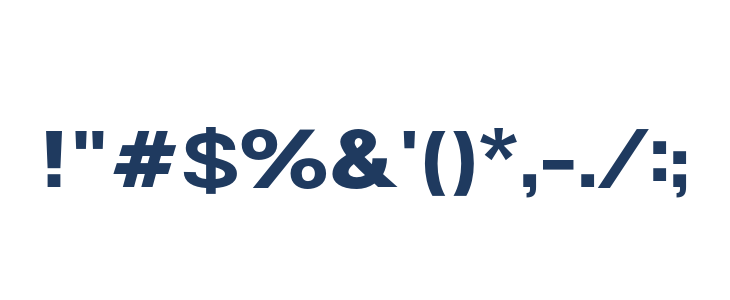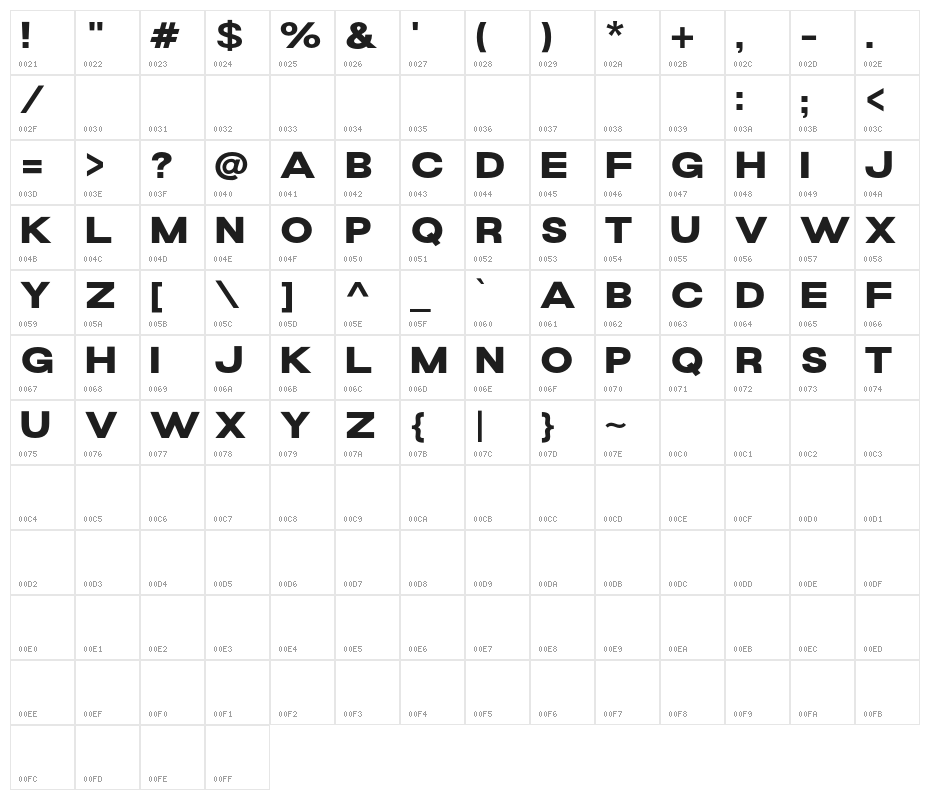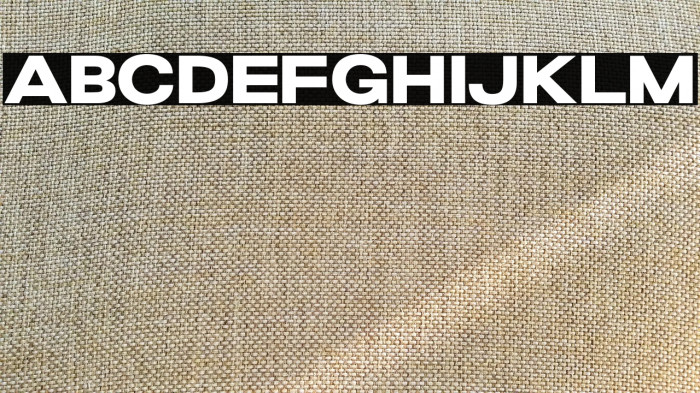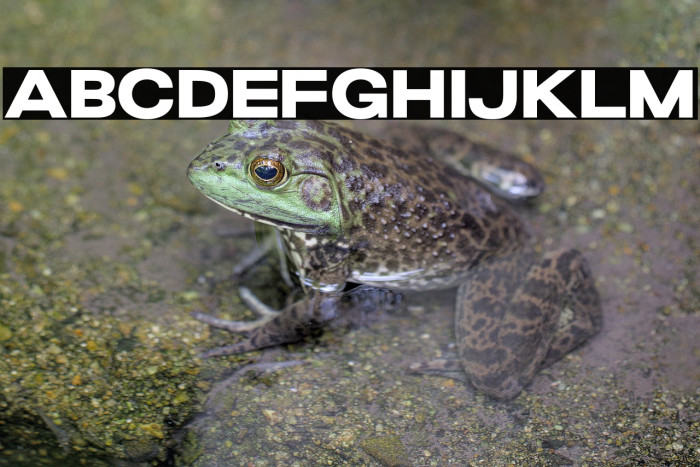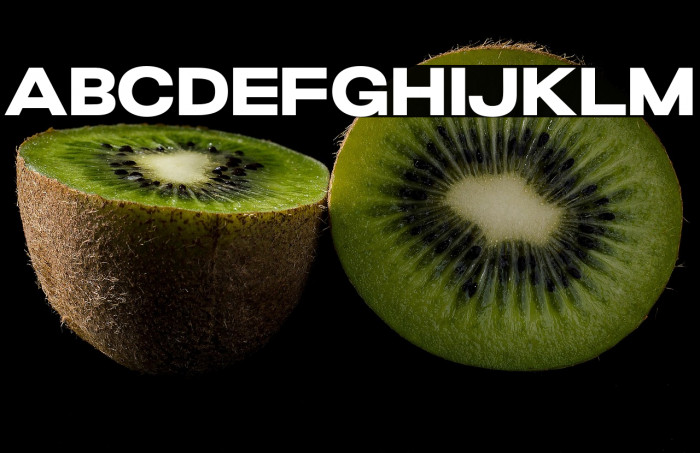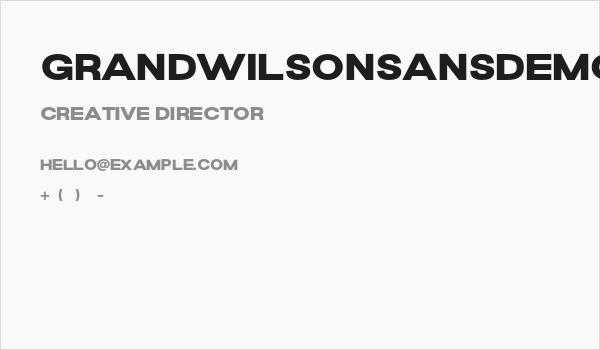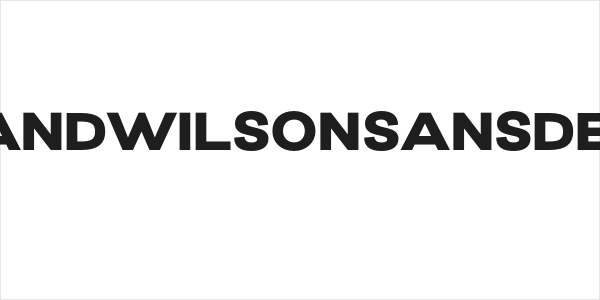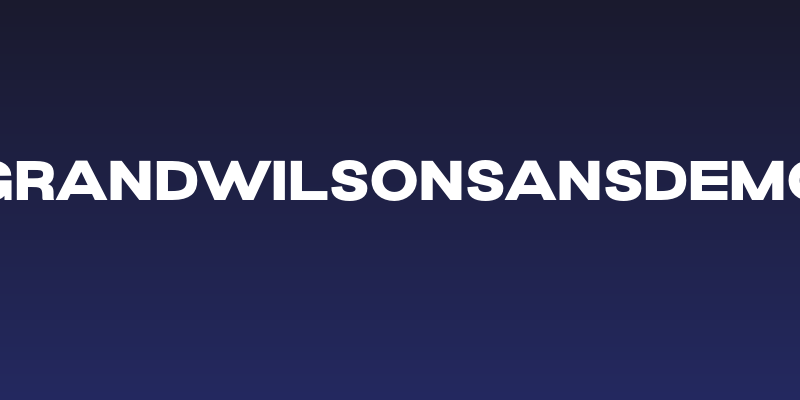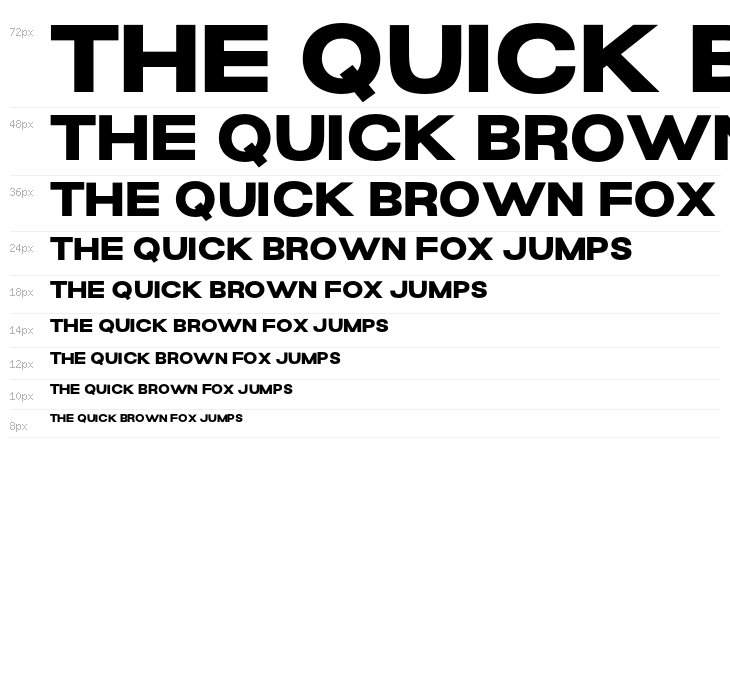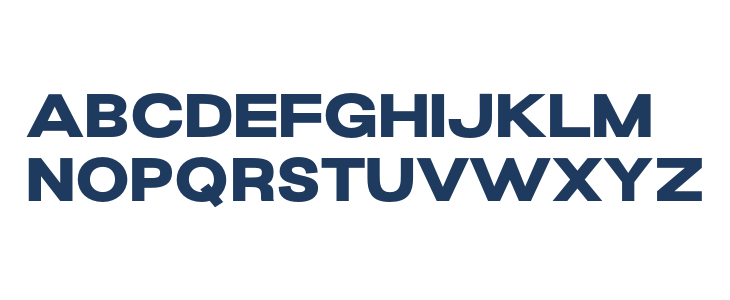
GrandWilsonSansDEMO Font
GrandWilsonSansDEMO Description
This font features a bold and modern sans-serif style, characterized by its clean lines and uniform stroke widths. The uppercase letters are strong and impactful, making them suitable for attention-grabbing headlines. The lowercase letters maintain the same boldness, ensuring consistency throughout the text. The numerals are clear and easily readable, while the special characters are well-defined, adding versatility to the font's use. The overall design is straightforward and functional, making it ideal for a variety of applications where clarity and impact are essential.